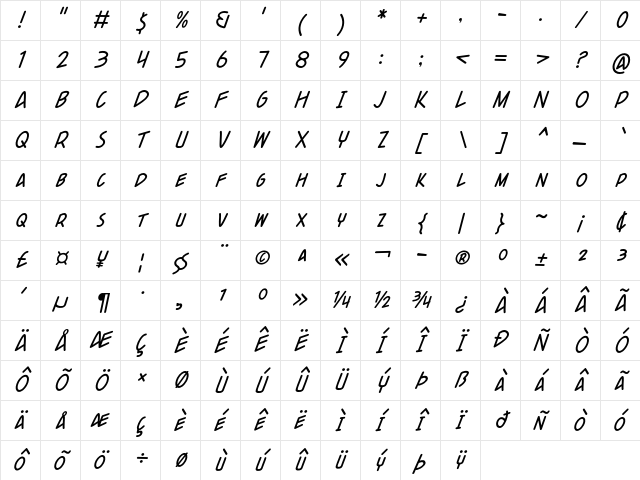
Complete Uni Gogi Italic glyph index. Displaying only characters natively supported by Uni Gogi Italic font.
Uni Gogi is a composed and adaptable typeface that performs quietly and consistently across a wide range of design contexts. The slanted form adds forward momentum and visual energy.